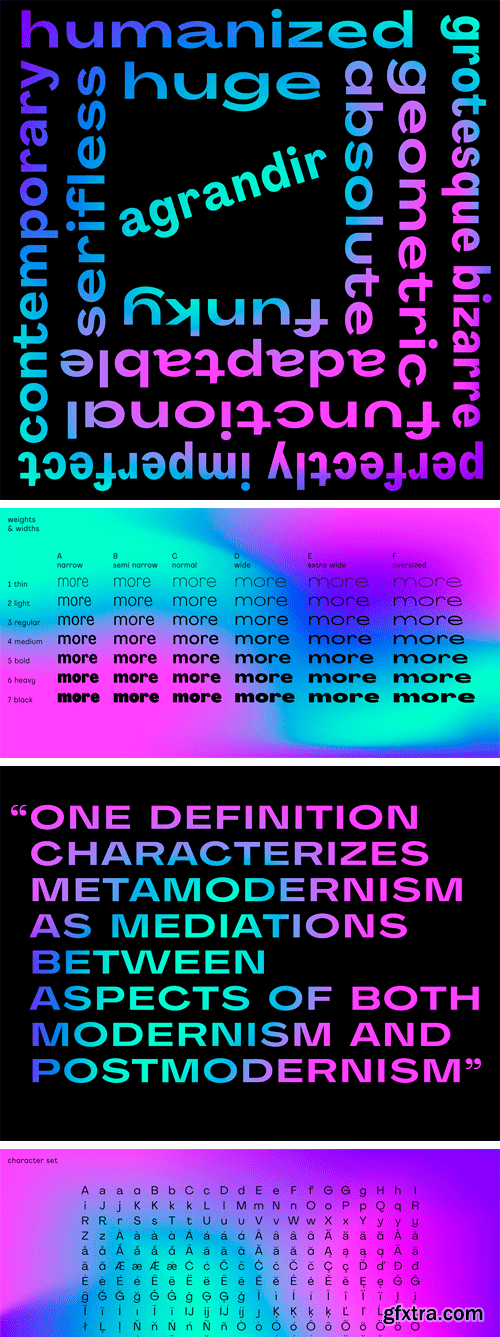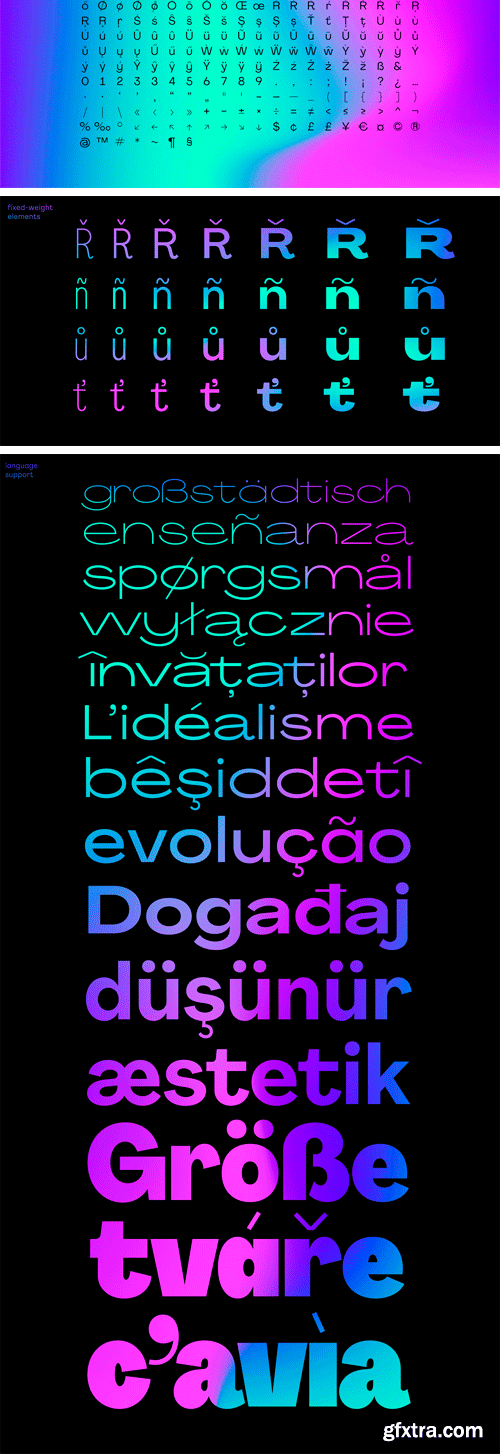
Agrandir Font Family
Agrandir is a contemporary serifless type family based on geometric yet humanized and imperfected shapes. The typeface consist of 42 fonts: 7 weights × 6 widths, from very thin and narrow to extremely black and oversizely wide. There’s a fairly good number of OpenType stylistic alternatives in Agrandir, which can be turned on individually or as style sets: Default (Mixed), Grotesk, Humanist and Geometric.